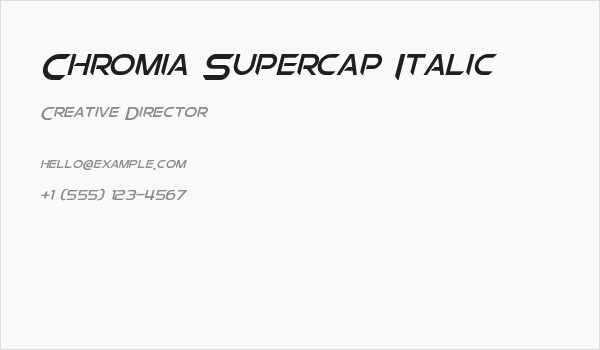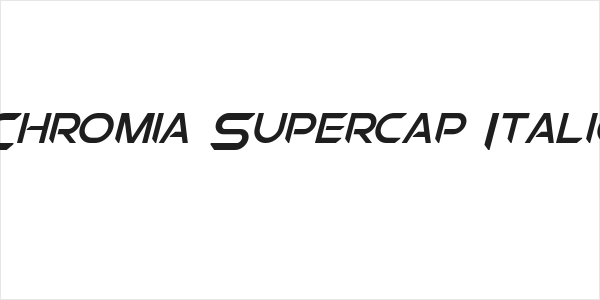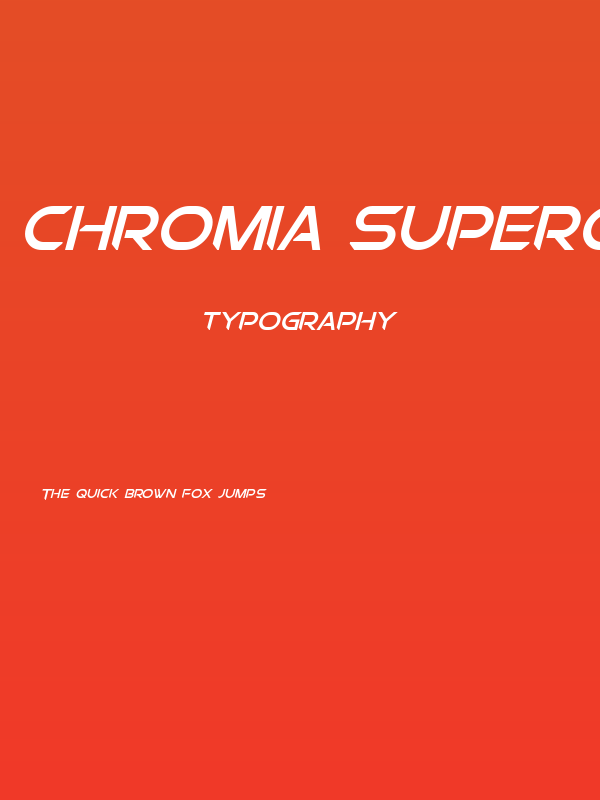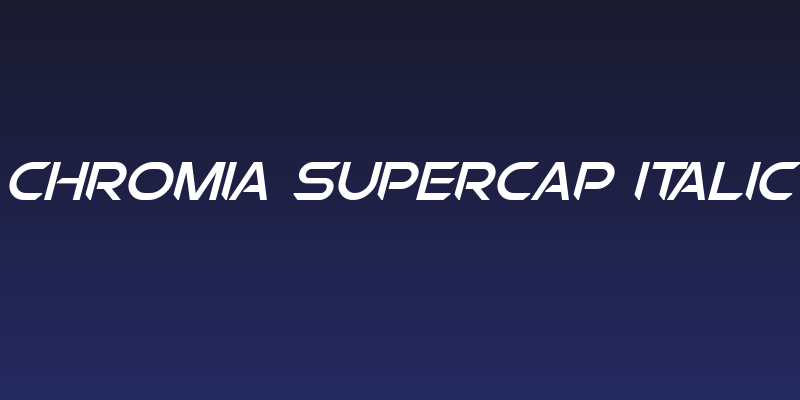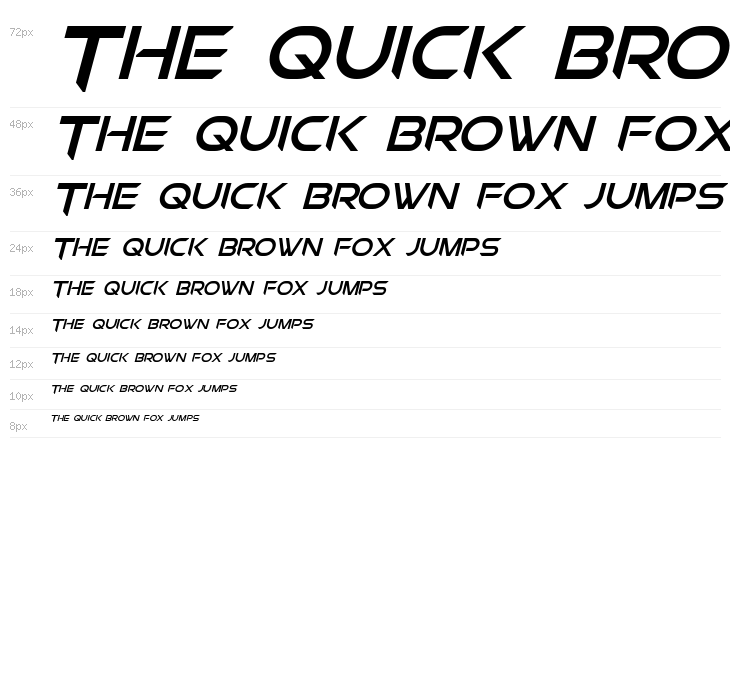
Chromia Supercap Italic Font
Chromia Supercap Italic Description
This font features a modern and dynamic design with a distinct italic slant, giving it a sense of motion and energy. The characters are sleek and angular, with sharp edges and a futuristic aesthetic. The uppercase and lowercase letters maintain a consistent style, while the numerals and special characters complement the overall look. The font's design is clean and legible, making it suitable for various applications where a contemporary and stylish appearance is desired.
| Proposed Projects | Ideal for branding, advertising, sports-related designs, and tech-oriented projects. |